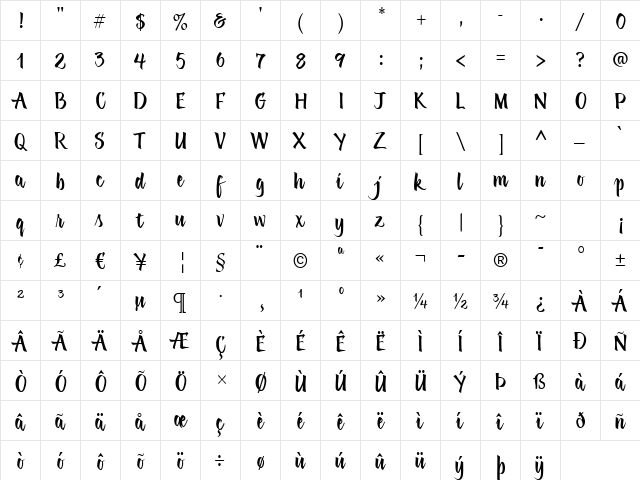
GrafiaScriptUT Regular
Design Context for GrafiaScriptUT Typeface
GrafiaScriptUT flows with the natural rhythm of handwritten lettering, making it ideal for designs that call for warmth and personal expression.
Font Pairing: Combine GrafiaScriptUT with a simple geometric sans for maximum contrast — the tension between flowing curves and clean structure is a classic typographic pairing.
Pro Tip: Pair GrafiaScriptUT with a clean sans-serif for supporting text. The contrast between fluid script and geometric structure creates an elegant typographic hierarchy.